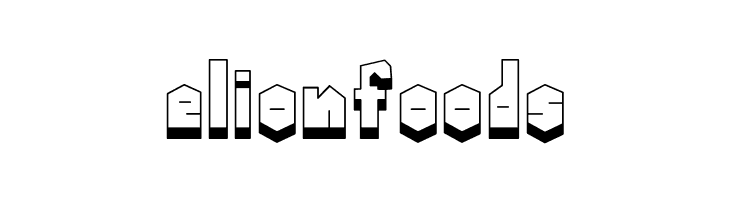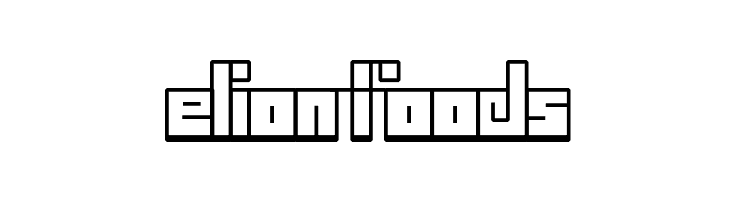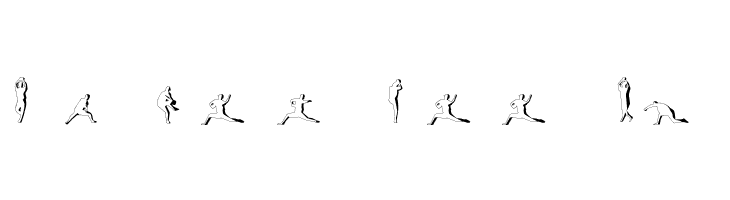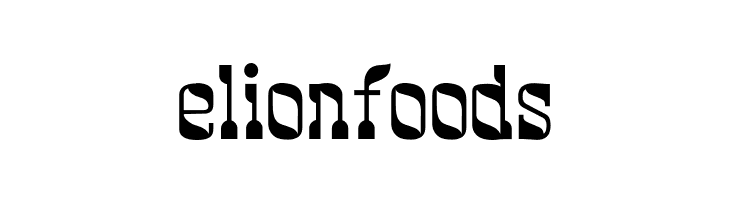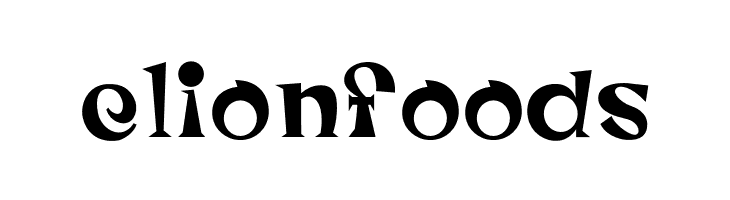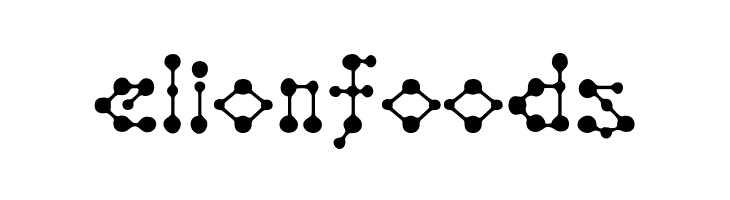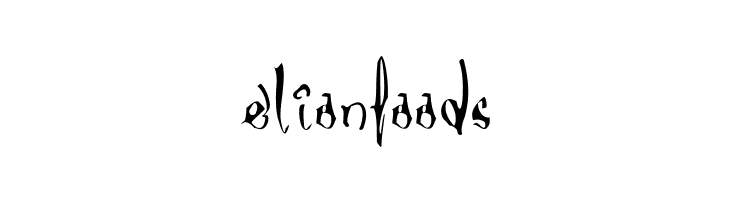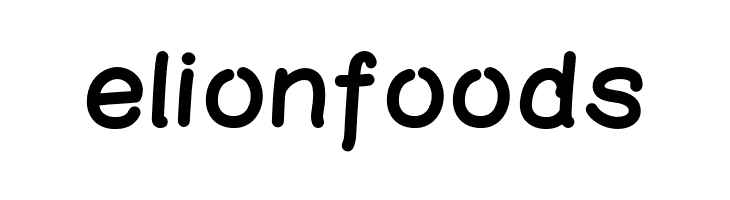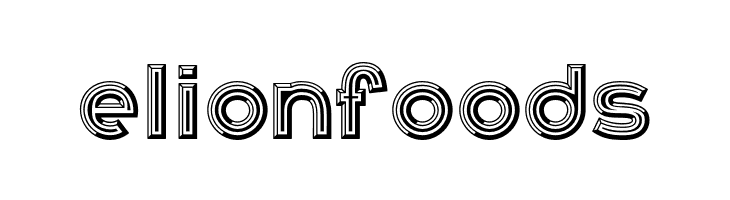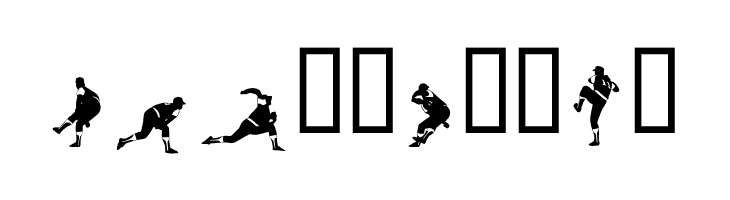
A bold, 3D block font with shadow effects for dramatic impact.
A bold, geometric font with a blocky, modern design.
A dynamic and artistic design featuring human silhouettes in motion.
A bold, geometric font with dynamic curves and strong visual impact.
A bold, dynamic font with sharp angles and distinctive cuts, perfect for impactful designs.
A playful, dot-connected font with a futuristic and abstract style.
A decorative font with feather-like embellishments and a calligraphic style.
A playful, rounded font with smooth, flowing characters.
A bold, decorative font with a three-dimensional outline effect and geometric shapes.
Sport-themed decorative font with athlete silhouettes and outlined numbers.